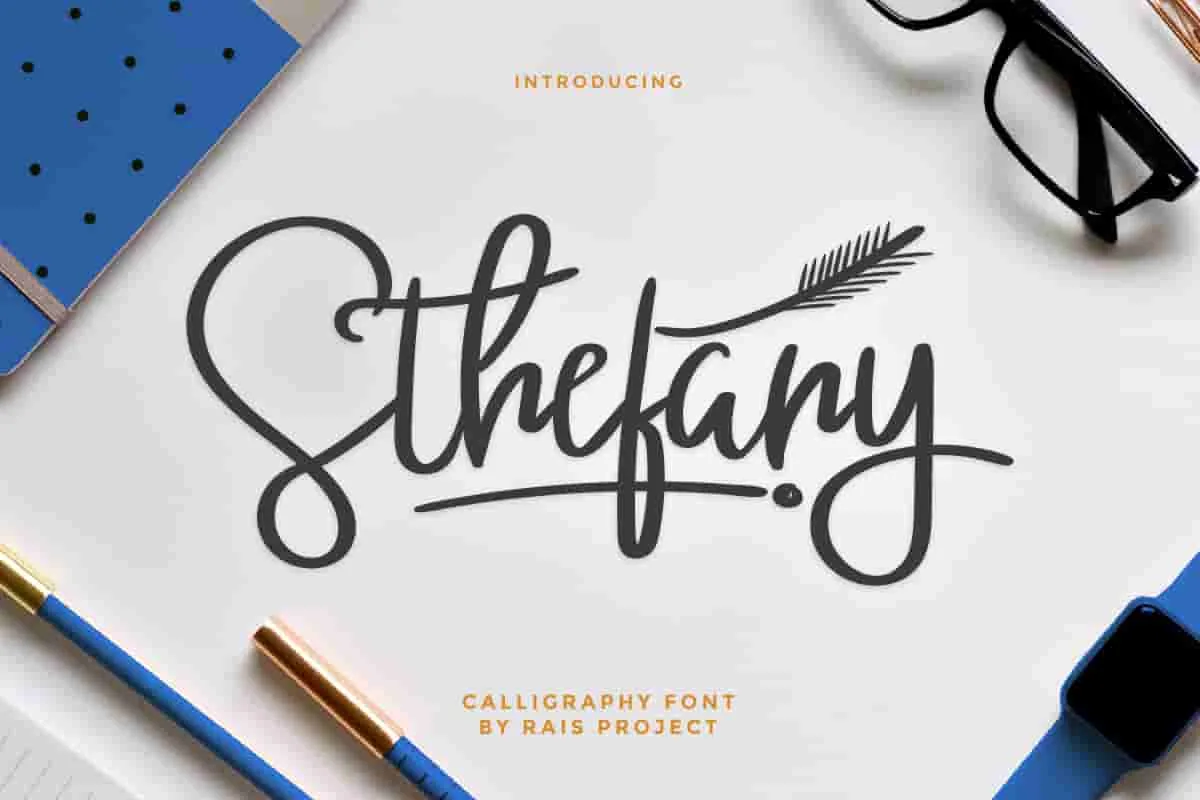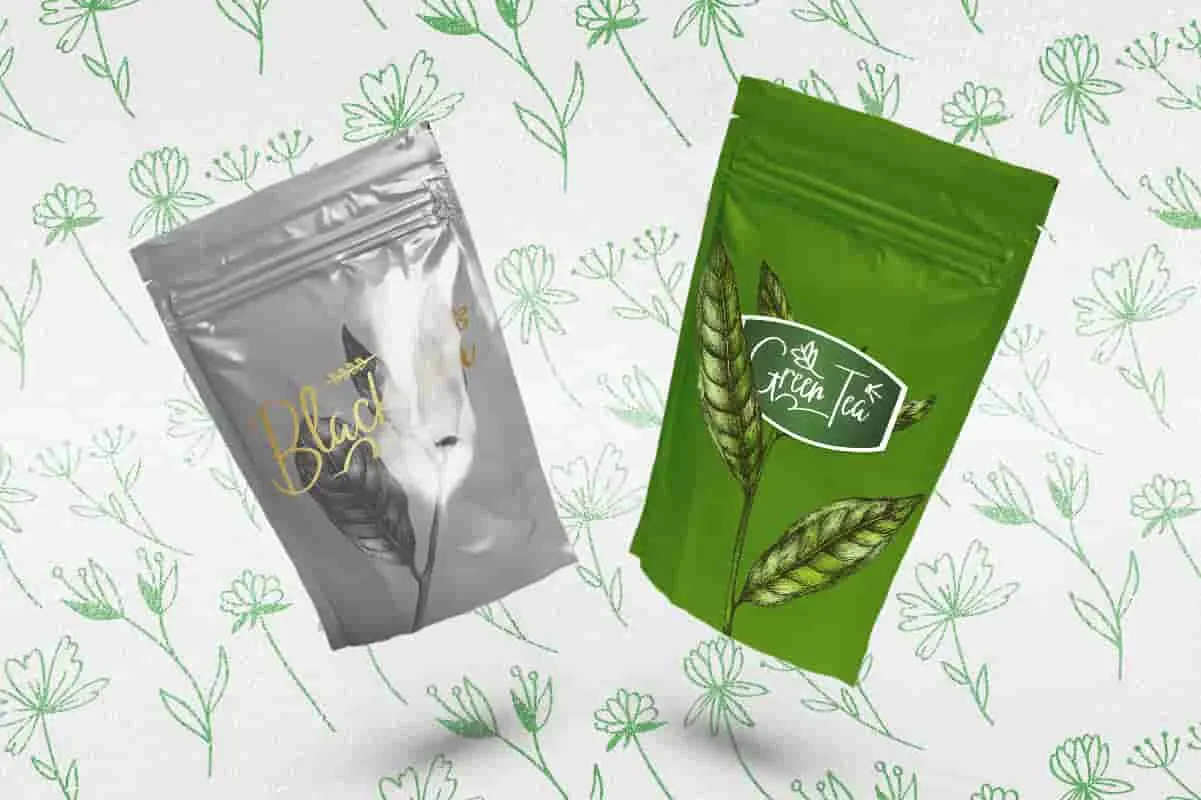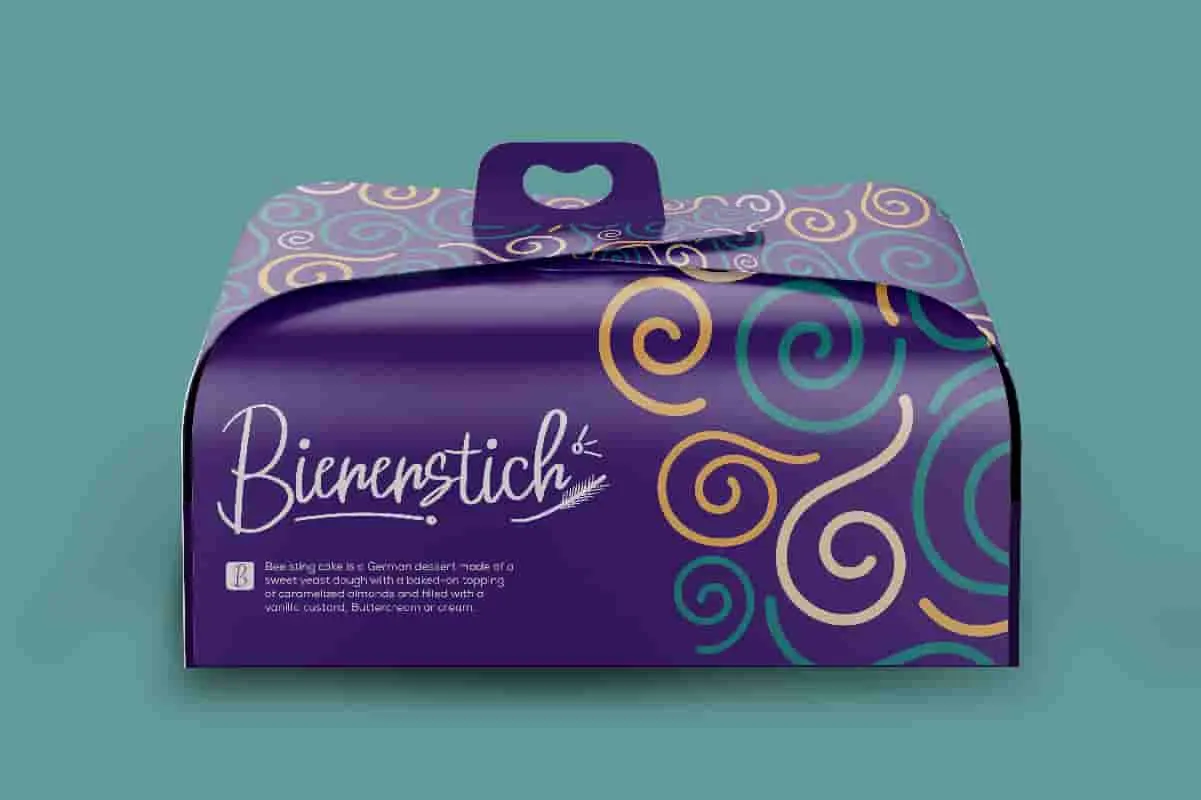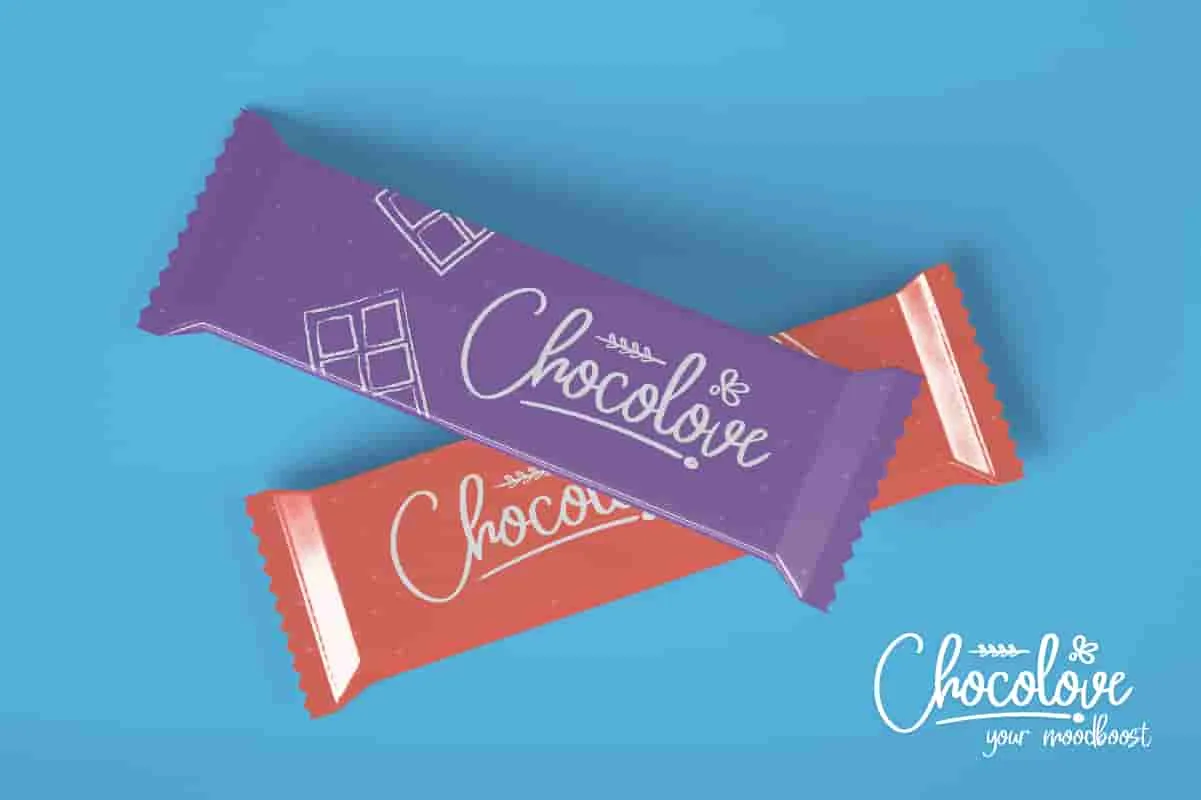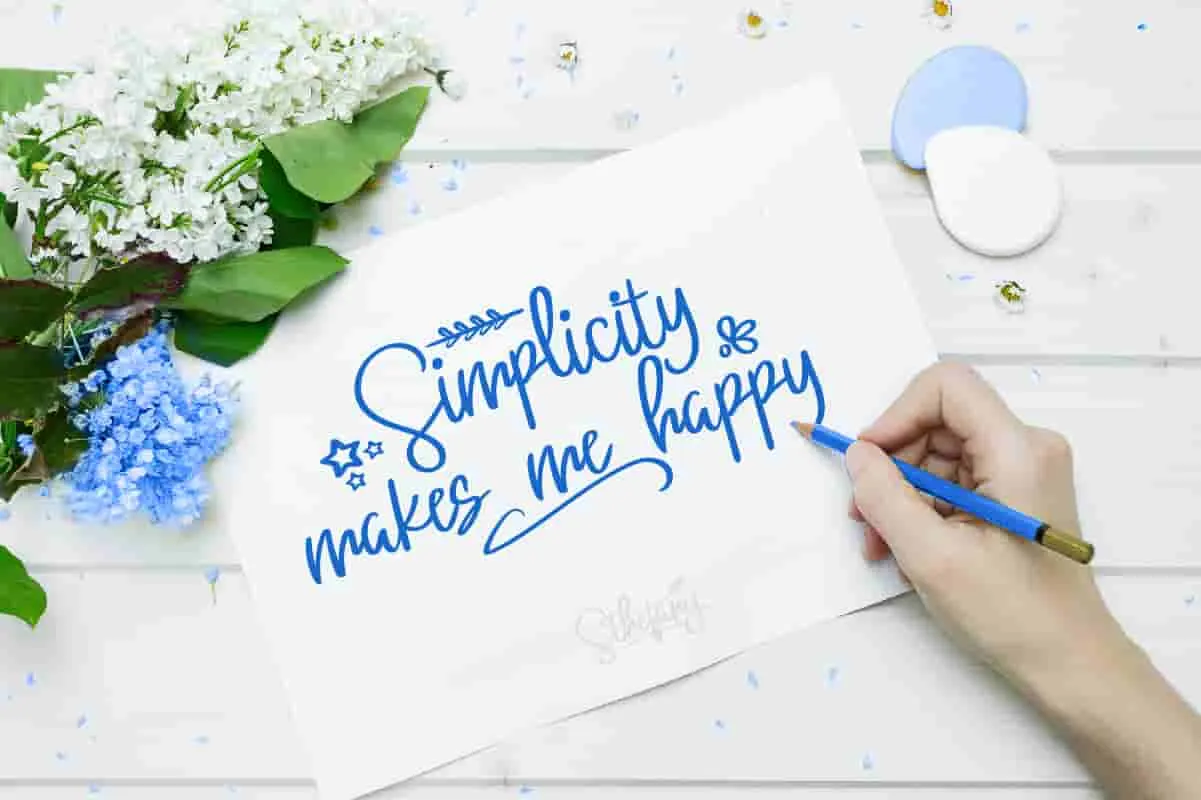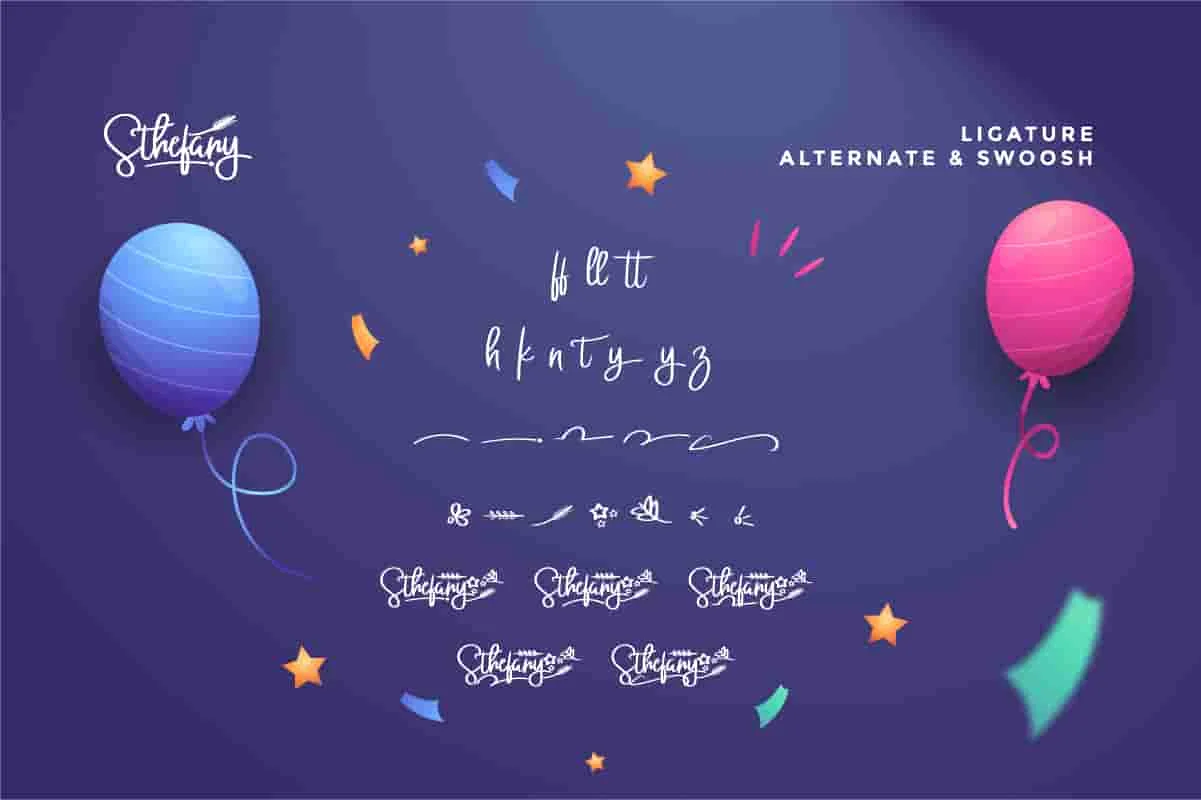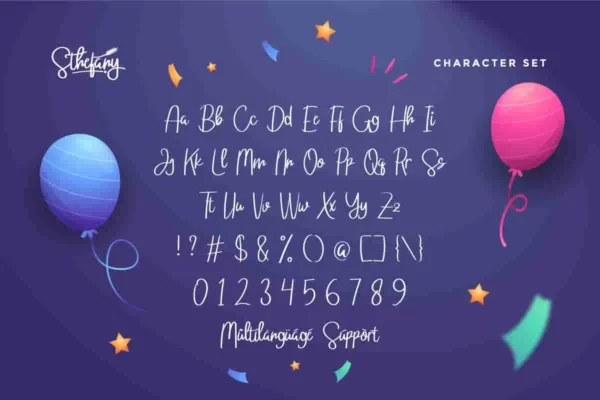
Sthefany Handwriting Font
Sthefany Font is a handwriting script font by RaisProject. It will be great for invitation, games, promotion, events, advertising etc
Sthefany Font  is a script font with casual handwriting style. You can see the demo font below. You can also input any word you want so you can see what it will look like :
Sthefany Font handcrafted With beautiful characters, it will be stunning for any your special projects including : games, promotion, events, branding, advertising, magazine, apps, signage, invitation, stationery, social media posts, product packaging, product designs, label, comic, watermark or and any projects that need calligraphy handwriting style. All letters has hand-lettered style to make it unique yet cool looking design. You will get:
This font includes uppercase and lowercase letters, punctuation, numerals, and multilingual support. It’s fully PUA encoded, so you can easily access all the beautiful swashes and alternates without extra design software. Compatible with Adobe Illustrator, Photoshop, InDesign, Canva, and more.